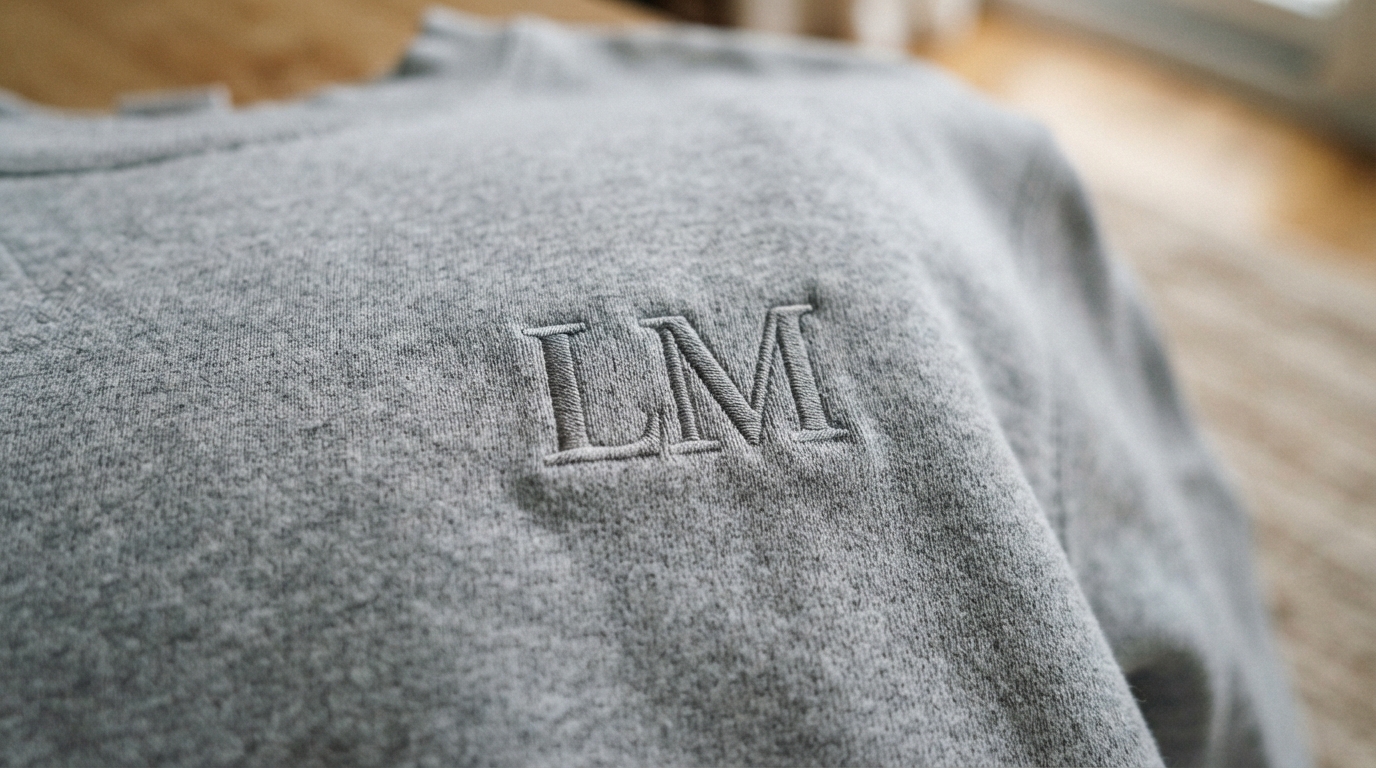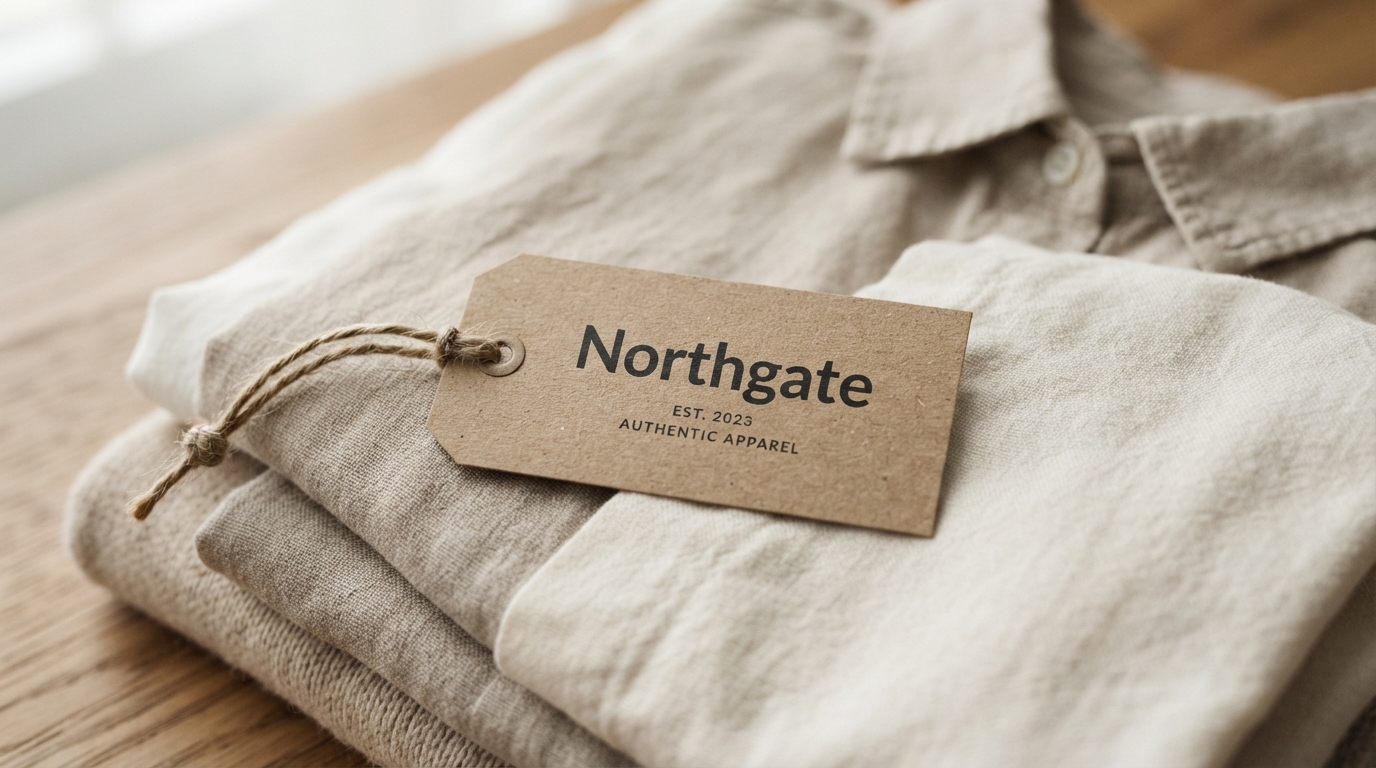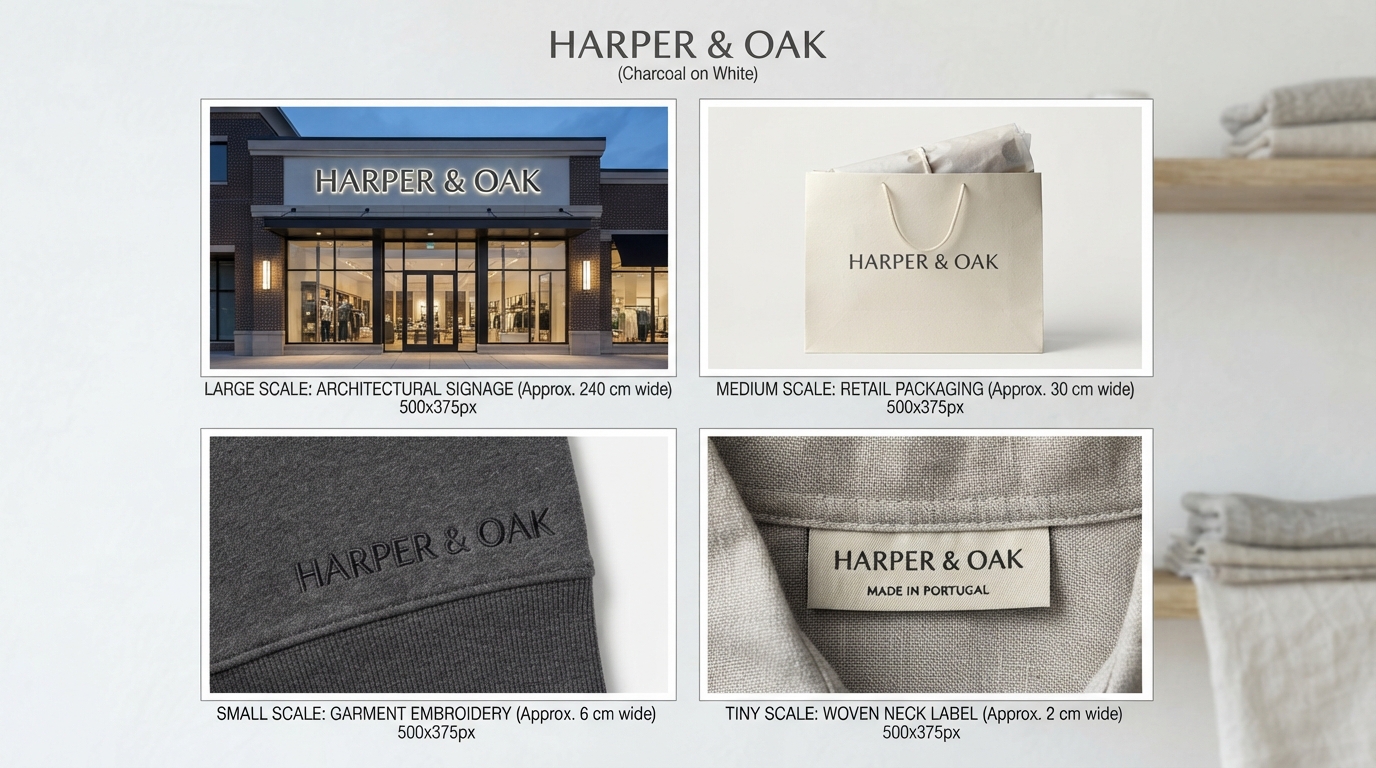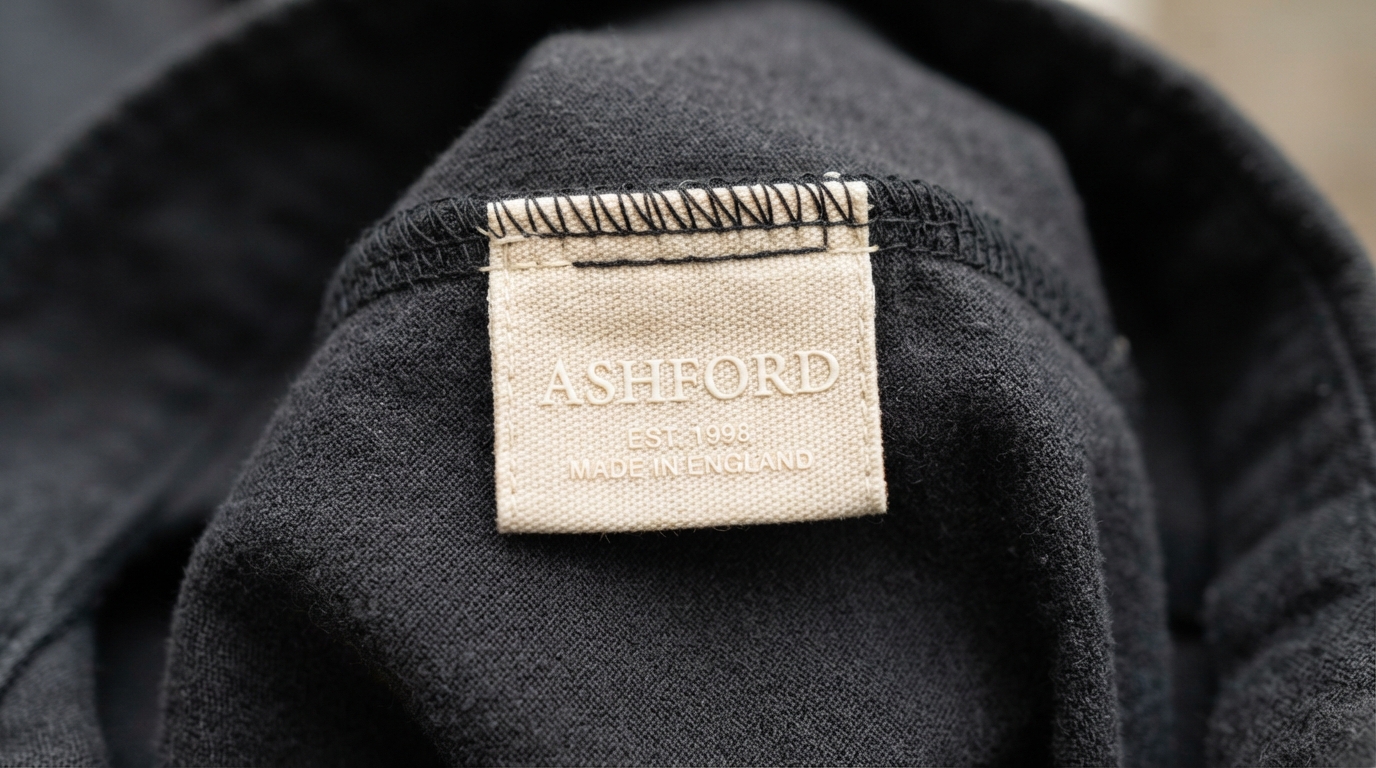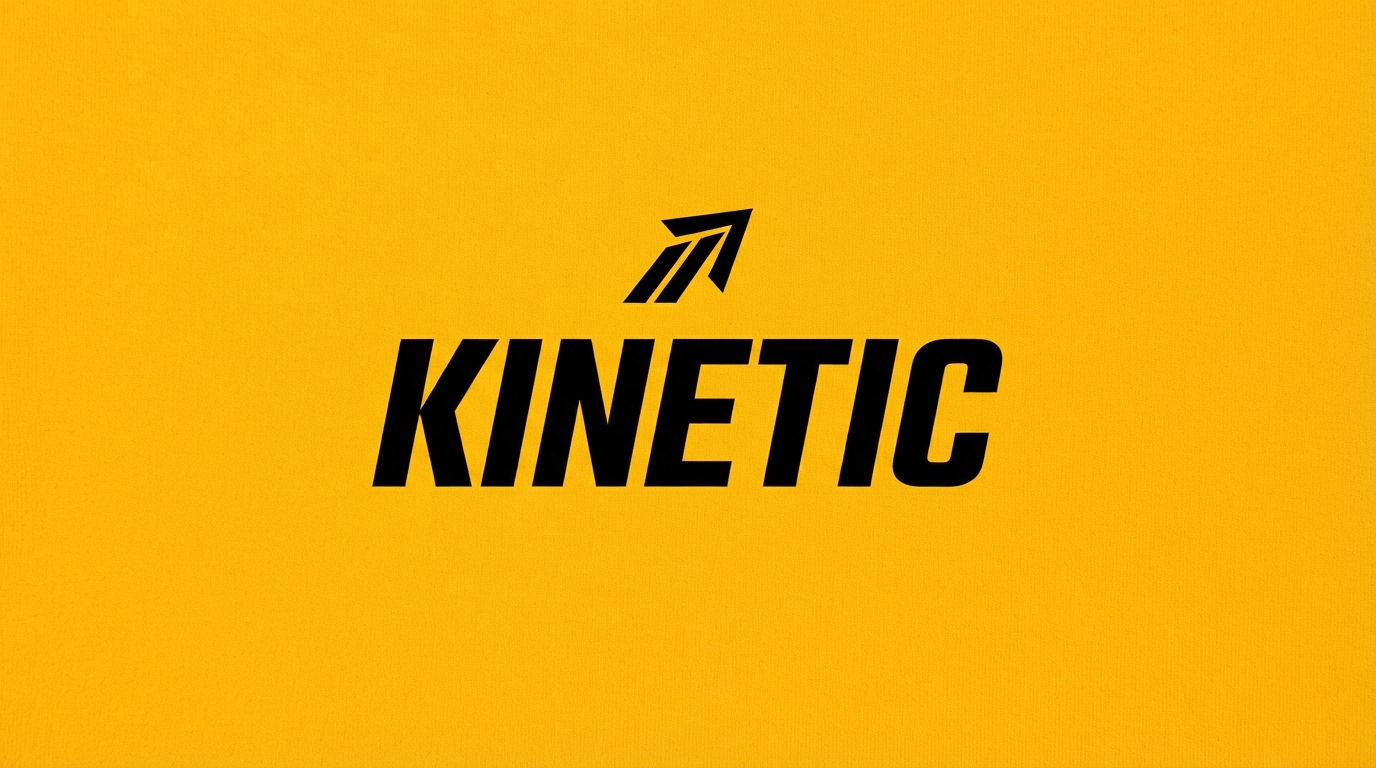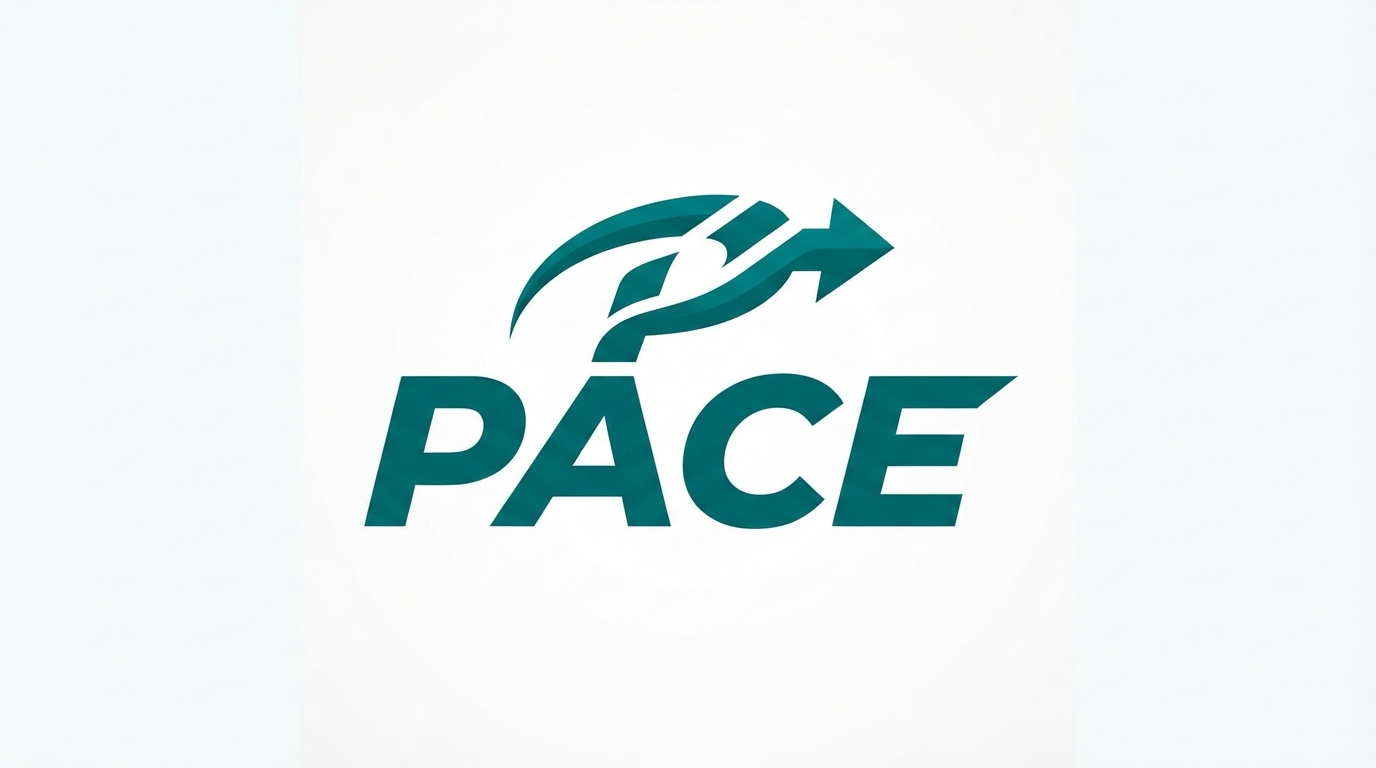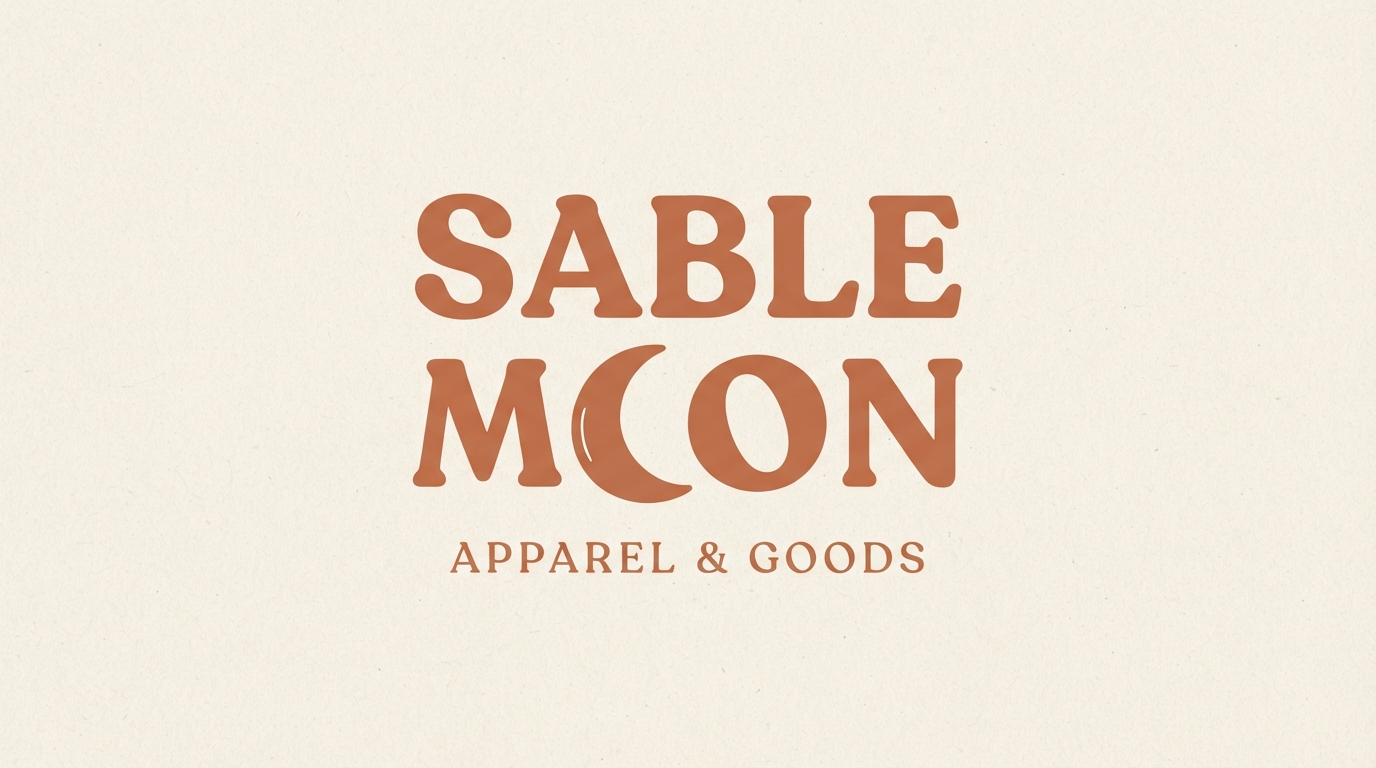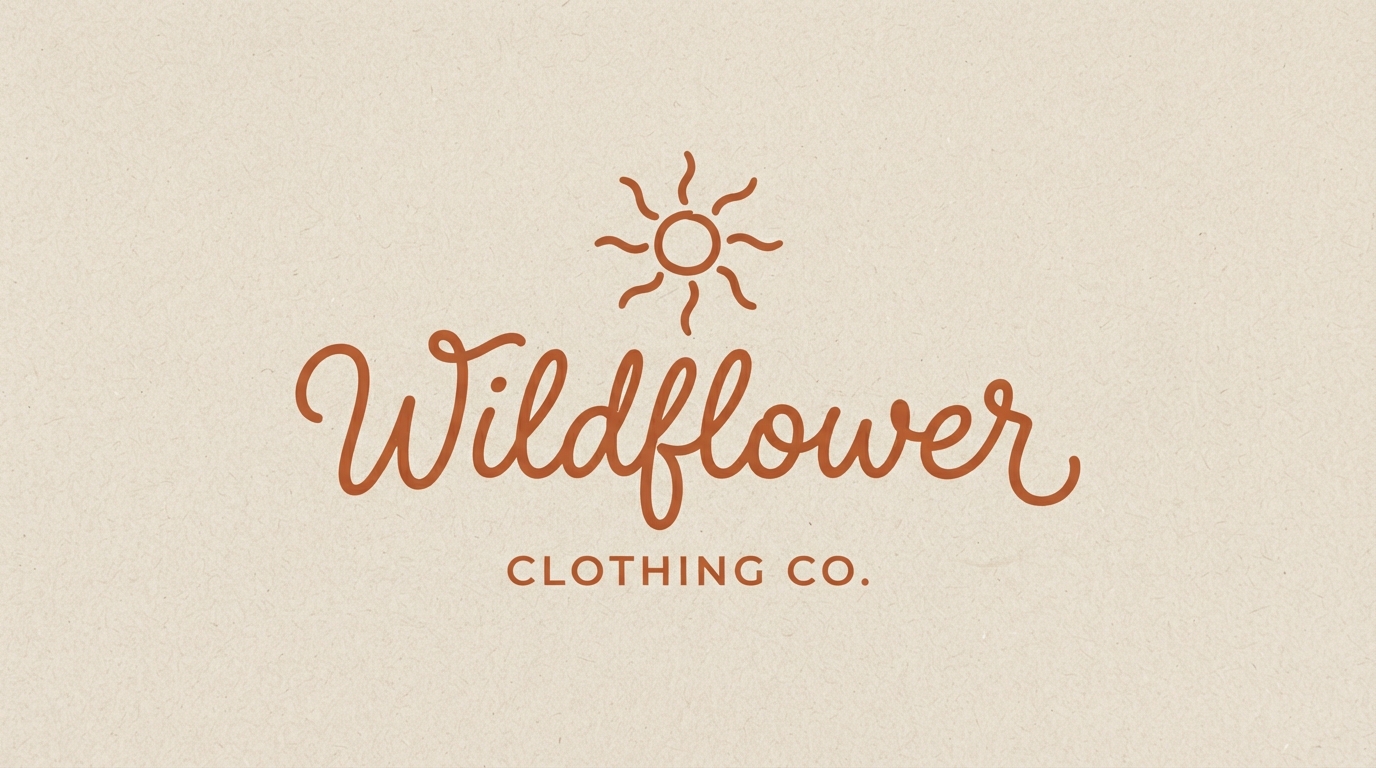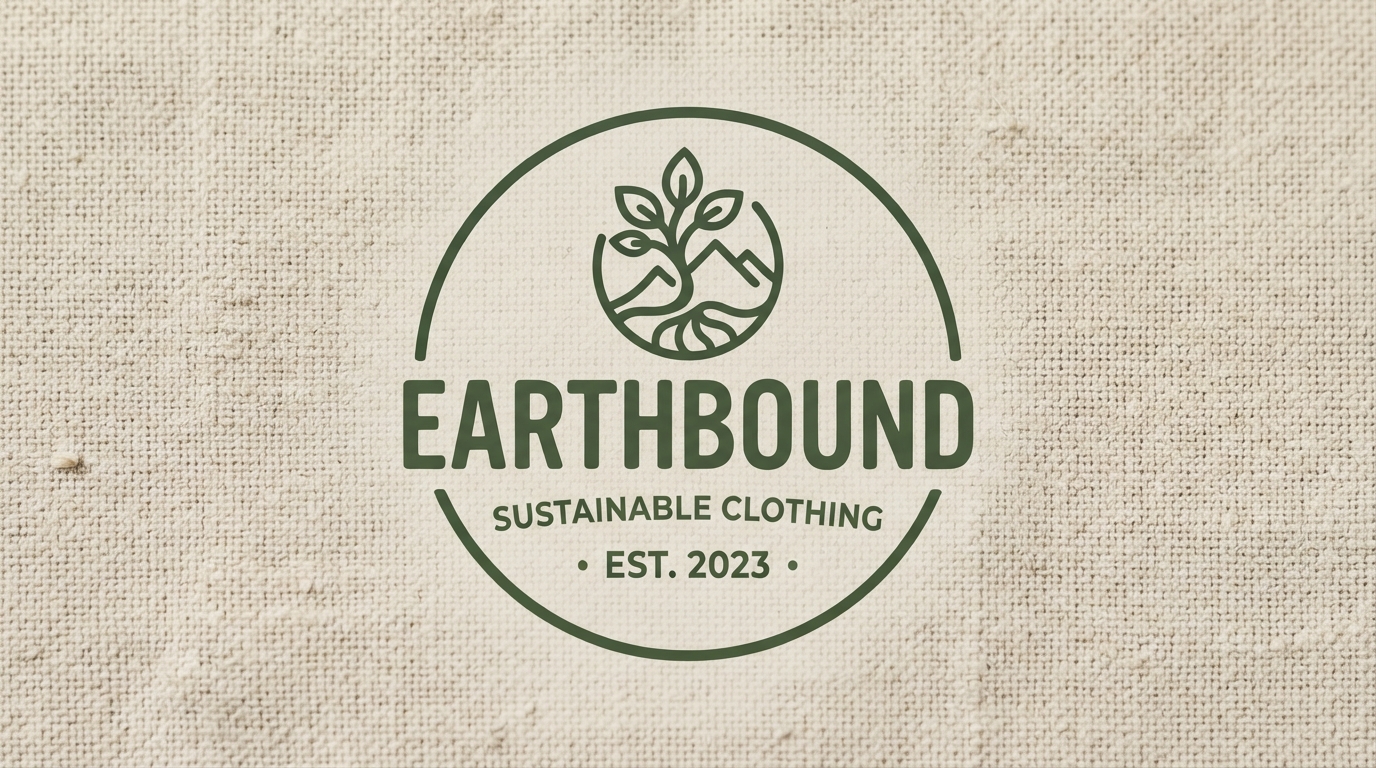
Clothing brand logo ideas are usually presented as a wall of pretty marks with no mention of the thing that actually decides whether a logo works: where it ends up. A logo that looks refined on screen can clog into an unreadable blob once it is woven into a neck label at fifteen millimetres wide. This guide organises twenty concepts by brand positioning, and each one includes the typography, palette, and the specific application where it will fail if you are not paying attention.
Why Positioning Comes Before Design
Clothing brand logo ideas cannot be evaluated in isolation, only against what the brand is trying to be. A thin tracked-out serif is exactly right for a quiet luxury label and completely wrong for kids’ clothing, and neither judgement has anything to do with whether the mark is well drawn.
So before browsing clothing brand logo ideas, settle three things: what price point you are selling at, who you are competing against, and whether the customer is buying identity or utility. Those answers eliminate most of the options below, which is the point. A brief that permits everything produces nothing.
About these examples. Every mark shown is an original concept made for this guide using invented brand names. None is a real company. Use them to understand the reasoning, not as artwork to copy, since a working identity has to be drawn for one specific business.
Quiet Luxury
Understated, expensive, and deliberately unbranded. The restraint is the message.
Quiet luxury
Maison Elder
How it reads: Expensive and self-assured. The extreme letter spacing implies the brand has nothing to prove and no need to shout.
Typography: Thin high-contrast serif, tracked out heavily. The hairlines do the signalling.
Palette: Near-black on warm off-white. Introducing a second colour would undercut the restraint.
Where it lives: Printed lookbooks, shop fascia, tissue paper. Excels anywhere it gets space around it.
Watch out for: Embroidery. Those hairlines clog in thread, so you need a heavier cut specifically for stitched applications.
Quiet luxury
Norrland
How it reads: Established and international. The city line beneath does more positioning work than the name itself.
Typography: Refined serif with a subtle swash on one letter, so it is not entirely anonymous.
Palette: Warm taupe on cream. Tonal rather than contrasting, which reads as considered.
Where it lives: Debossed on packaging, foil-blocked on boxes. Built for tactile print rather than screens.
Watch out for: The city line dating badly if you relocate. Keep it on a separate layer you can pull without redrawing.
Minimal Modern
Clean, geometric, design-conscious. Sells to people who notice typography.
Minimal modern
FORM
How it reads: Confident and contemporary. Tight tracking on a heavy geometric sans reads as architectural.
Typography: Heavy geometric sans, tracking pulled tight. Short names only, since this gets unwieldy fast.
Palette: Pure black on white. Anything else weakens the starkness that is the entire point.
Where it lives: Large chest prints, tote bags, shop windows. Scales up better than almost anything else here.
Watch out for: Genericness. Heavy geometric sans is the default of a thousand brands, so the name has to carry the distinctiveness.
Minimal modern
studio nine
How it reads: Understated and design-literate. Lowercase signals informality without tipping into casual.
Typography: Light sans in lowercase, with a thin rule providing the only structure.
Palette: Soft grey on white. Deliberately low contrast, which suits a brand talking to other designers.
Where it lives: Website headers, digital lookbooks, business cards. Screen-first rather than garment-first.
Watch out for: Low contrast failing on garments. What reads on a white screen vanishes on heather grey fabric.
Vintage Americana
Heritage cues, workwear roots, and manufactured provenance.
Vintage americana
Riverbend Supply Co
How it reads: Trustworthy and hard-wearing. The rope border and est date borrow credibility from a century of outdoor outfitters.
Typography: Condensed slab serif curved around the ring. Needs a face that survives distortion on a radius.
Palette: Faded rust red on unbleached canvas. The fading is doing narrative work.
Where it lives: Screen prints on heavyweight cotton, canvas totes, enamel pins. Built for texture.
Watch out for: Detail loss. Everything inside a circular badge shrinks together, so simplify aggressively for small applications.
Vintage americana
Cedar & Pine Workwear
How it reads: Honest and functional. The frame plus est date is workwear shorthand understood instantly.
Typography: Bold condensed slab serif with a lighter secondary line. Two weights create the hierarchy.
Palette: Walnut brown on natural canvas. Warm, earthy, and consistent with the 2026 move toward grounded tones.
How many colours should a clothing logo use?
One or two for anything screen printed, since each colour adds a screen and a setup cost. Keep a full-colour version for digital use and a single-colour version for production.
Do I need to trademark my clothing brand logo?
If you plan to sell at any scale, it is worth investigating early. Search your category before you print stock, because discovering a conflict after a production run is expensive to unwind.